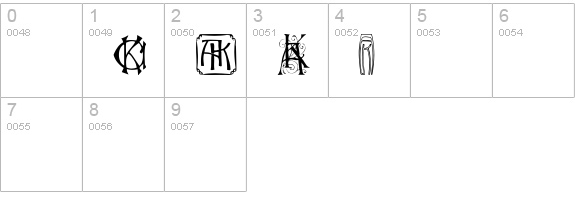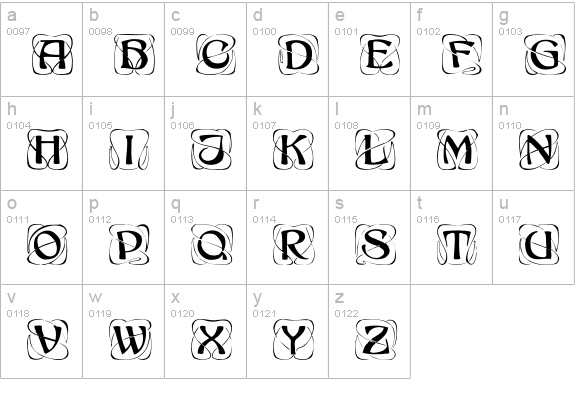
KonanKaps Font Details
Introducing KonanKaps font, a unique and eye-catching display typeface that exudes a sense of modern elegance and sophistication. This font features stylish and intricate letterforms that are perfect for making a statement in your designs. KonanKaps font is versatile and can be used for a wide range of projects, from branding to packaging, invitations to posters, and everything in between. Its bold and distinctive appearance will surely captivate your audience and leave a lasting impression. What makes KonanKaps font even more appealing is that it is completely free to download at FontsMarket.com. Yes, you read that right - you can get your hands on this stunning font without spending a dime. So don't miss out on the opportunity to elevate your designs with KonanKaps font today!